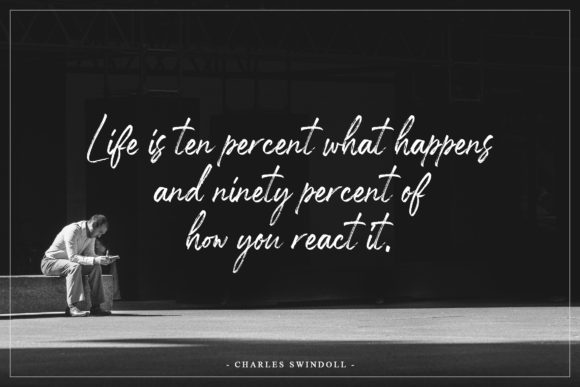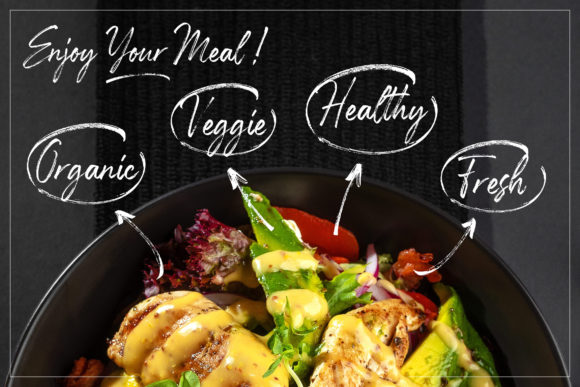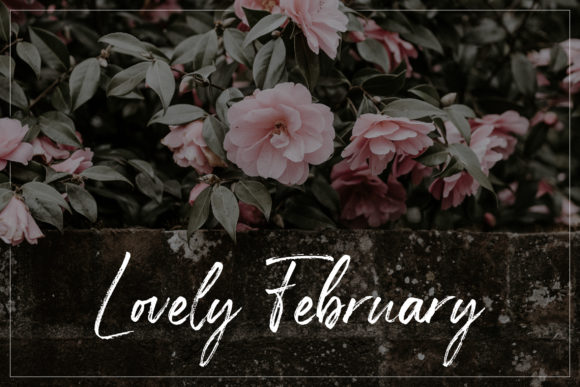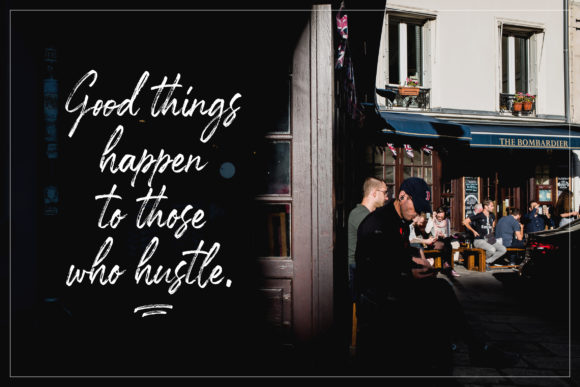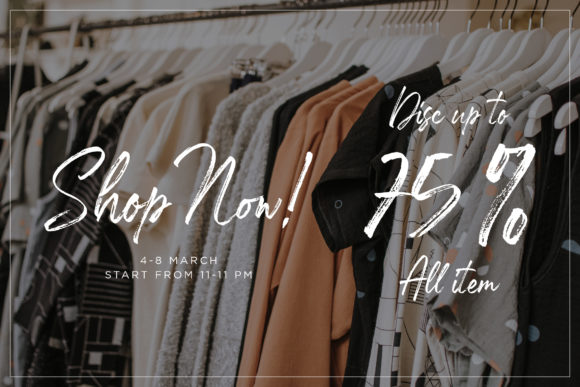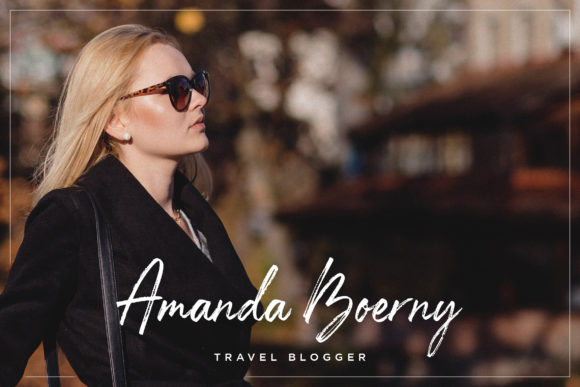
Discover the Elegance of Den Basuky Font: A Timeless Handwritten Delight
Are you a designer or crafter looking for a unique and elegant font to elevate your creative projects? Look no further than Den Basuky Font, an incredibly distinct, delicate, and timeless handwritten font that is sure to captivate your audience. In this article, we’ll explore the beauty and versatility of Den Basuky Font, and how it can add a touch of sophistication to your designs.
The Beauty of Den Basuky Font
Den Basuky Font is a stunning handwritten font that exudes elegance and refinement. Its delicate strokes and intricate details make it perfect for designs that require a personal touch. Whether you’re creating wedding invitations, thank you cards, quotes, greeting cards, logos, or business cards, Den Basuky Font is sure to impress. Its timeless quality ensures that your designs will remain stylish and relevant for years to come.
One of the standout features of Den Basuky Font is its versatility. It can be used in a wide range of design applications, from formal events to everyday projects. Here are some ideas to get you started:
• Wedding Invitations: Make your wedding invitations truly special with Den Basuky Font. Its elegant script will set the tone for a beautiful and memorable wedding celebration.
• Thank You Cards: Express your gratitude in style with Den Basuky Font. Its delicate strokes and heartfelt feel make it perfect for thank you cards and other expressions of appreciation.
• Quotes and Greeting Cards: Add a touch of elegance to your quotes and greeting cards with Den Basuky Font. Its timeless quality ensures that your messages will be cherished for years to come.
• Logos and Business Cards: Take your branding to the next level with Den Basuky Font. Its unique and memorable script will help you stand out from the competition and establish a lasting impression.
Why Choose Den Basuky Font?
So why choose Den Basuky Font over other fonts? Here are just a few reasons:
• Unique and Distinct: Den Basuky Font is unlike any other font you’ll find. Its delicate strokes and intricate details make it truly one-of-a-kind.
• Elegant and Refined: Den Basuky Font exudes elegance and refinement, making it perfect for designs that require a touch of sophistication.
• Timeless: Unlike trendy fonts that quickly go out of style, Den Basuky Font is timeless. Its classic quality ensures that your designs will remain stylish and relevant for years to come.
• Easy to Read: Despite its delicate nature, Den Basuky Font is easy to read and understand. This makes it perfect for designs that require a clear and concise message.
Tips for Using Den Basuky Font
To get the most out of Den Basuky Font, here are a few tips to keep in mind:
• Use it Sparingly: Den Basuky Font is best used sparingly, as its delicate nature can be overwhelmed by too much text.
• Pair it with Other Fonts: Experiment with pairing Den Basuky Font with other fonts to create a unique and visually appealing design.
• Adjust the Size: Don’t be afraid to adjust the size of Den Basuky Font to suit your design needs. Its delicate strokes look beautiful in both large and small sizes.
In conclusion, Den Basuky Font is a truly unique and elegant handwritten font that is sure to elevate your designs. Its delicate strokes, intricate details, and timeless quality make it perfect for a wide range of design applications. Whether you’re a designer or crafter, Den Basuky Font is a must-have in your font collection. So why wait? Discover the beauty and versatility of Den Basuky Font today and take your designs to the next level!